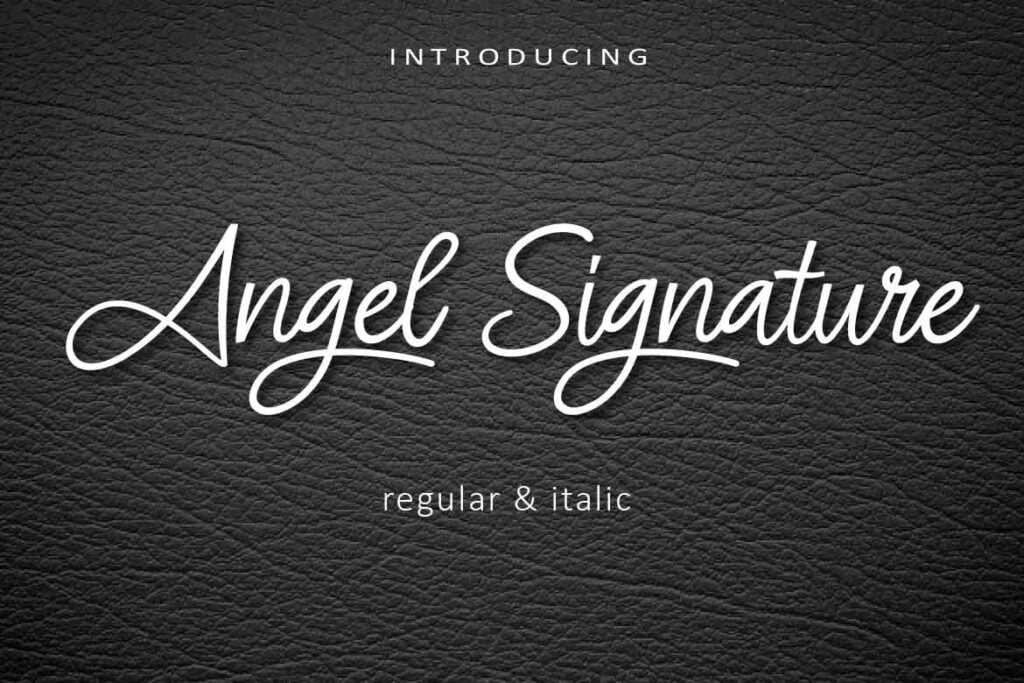
Angel Signature Font
Introducing “Angel Signature” font, a Monoline Signature font. This font is perfect for Wedding font, Fashion font, Invitation font, Business font, Quotes font, headline font, branding font, advertising font, Signature Font, Social Media Font, Stationary Font, Photography signature, event font, poster font, and many more.
Angel Signature Monoline Font